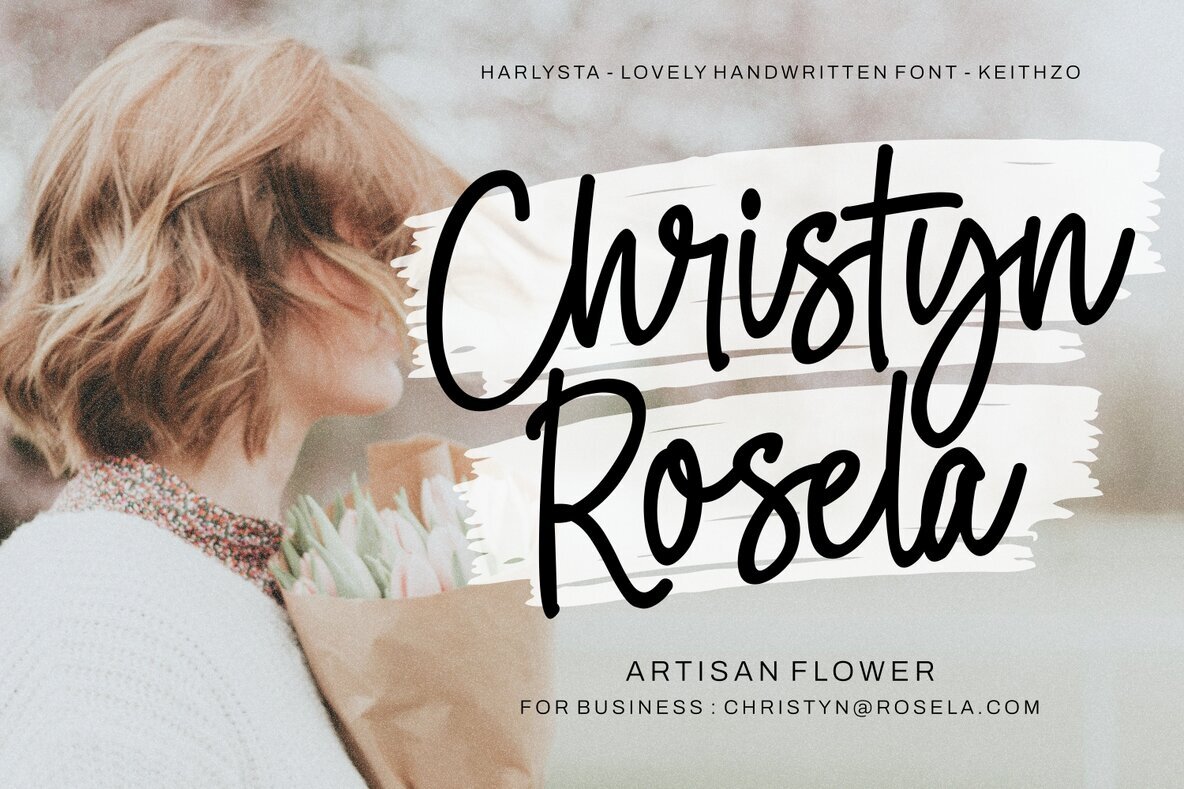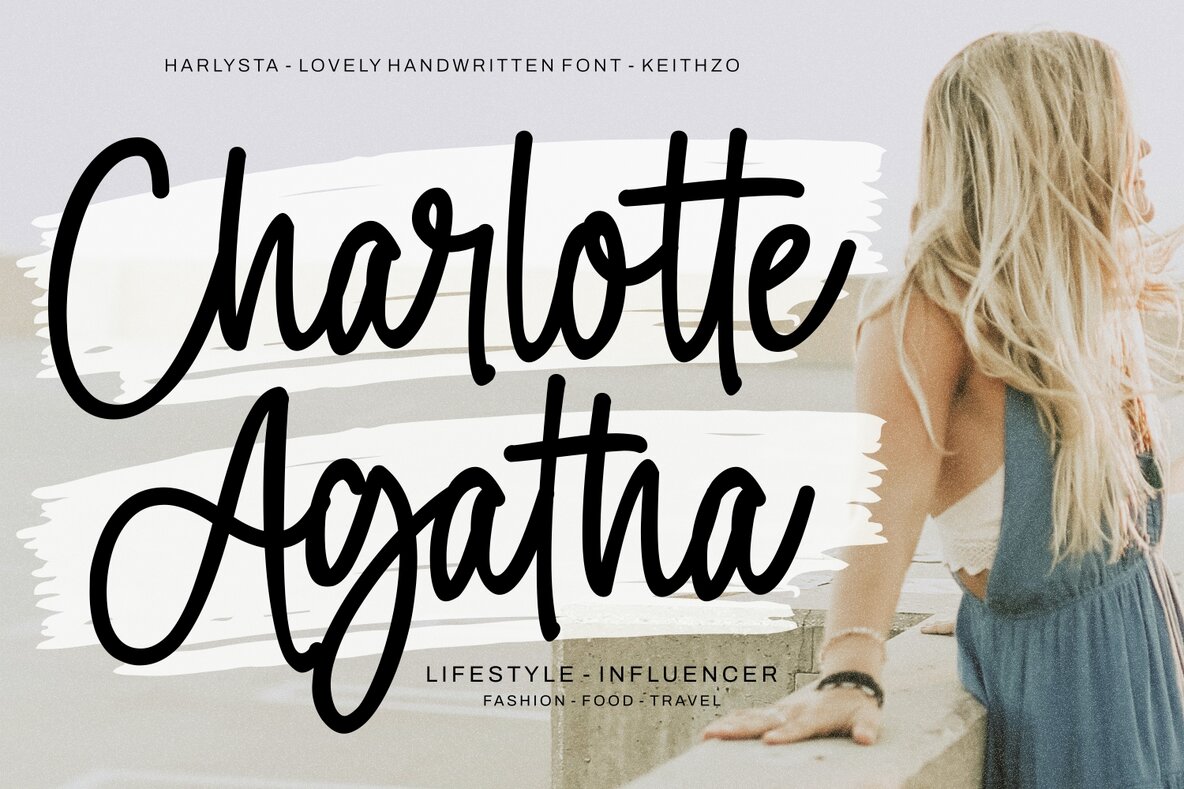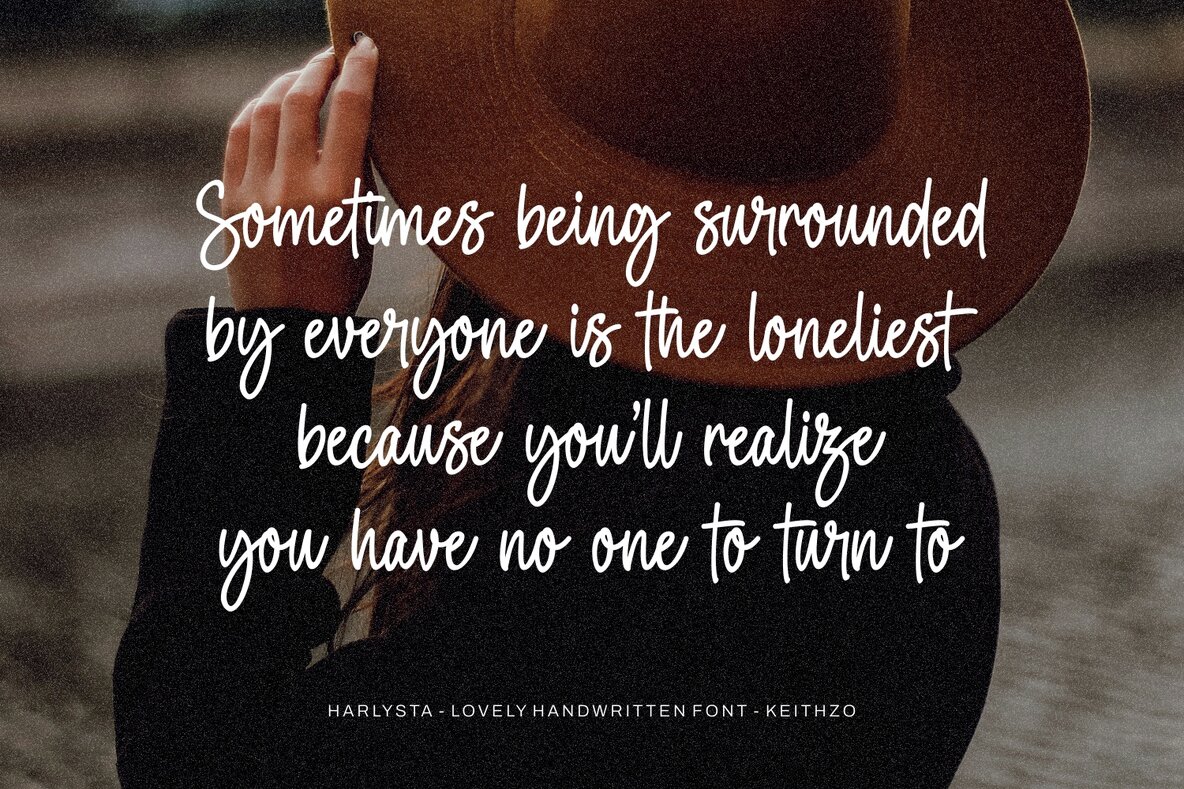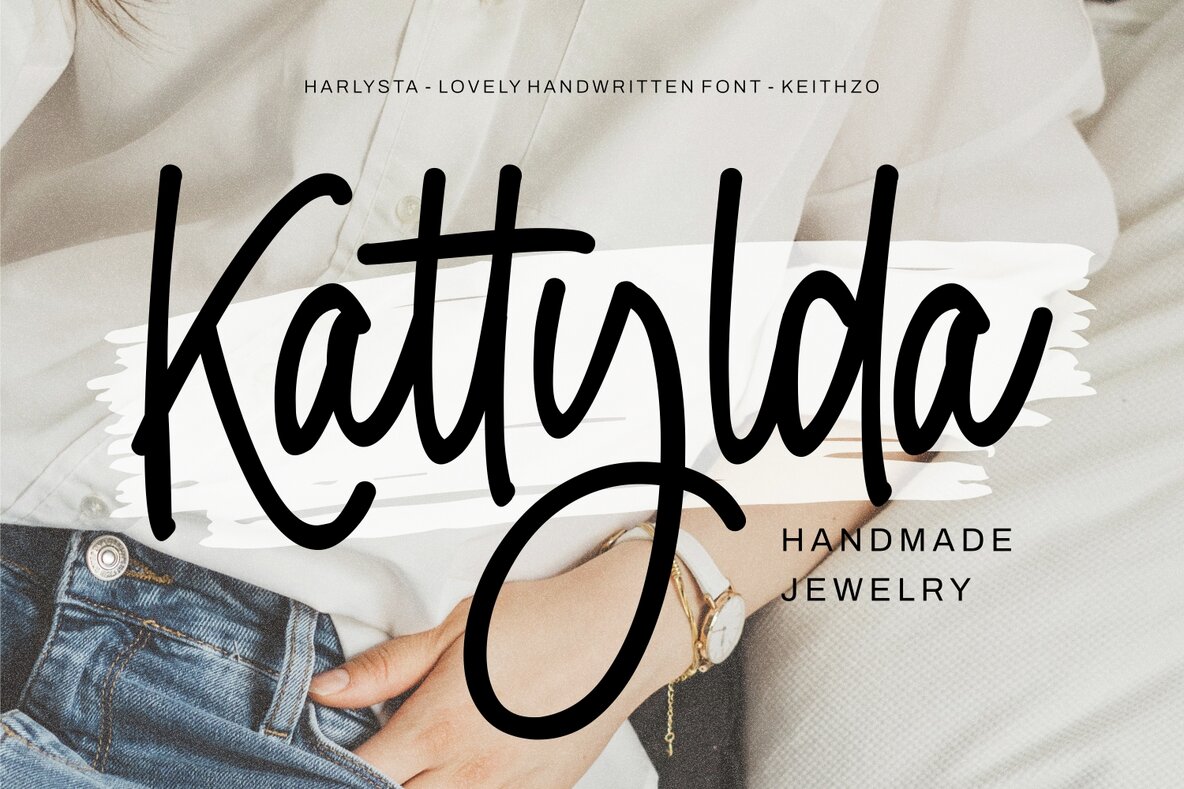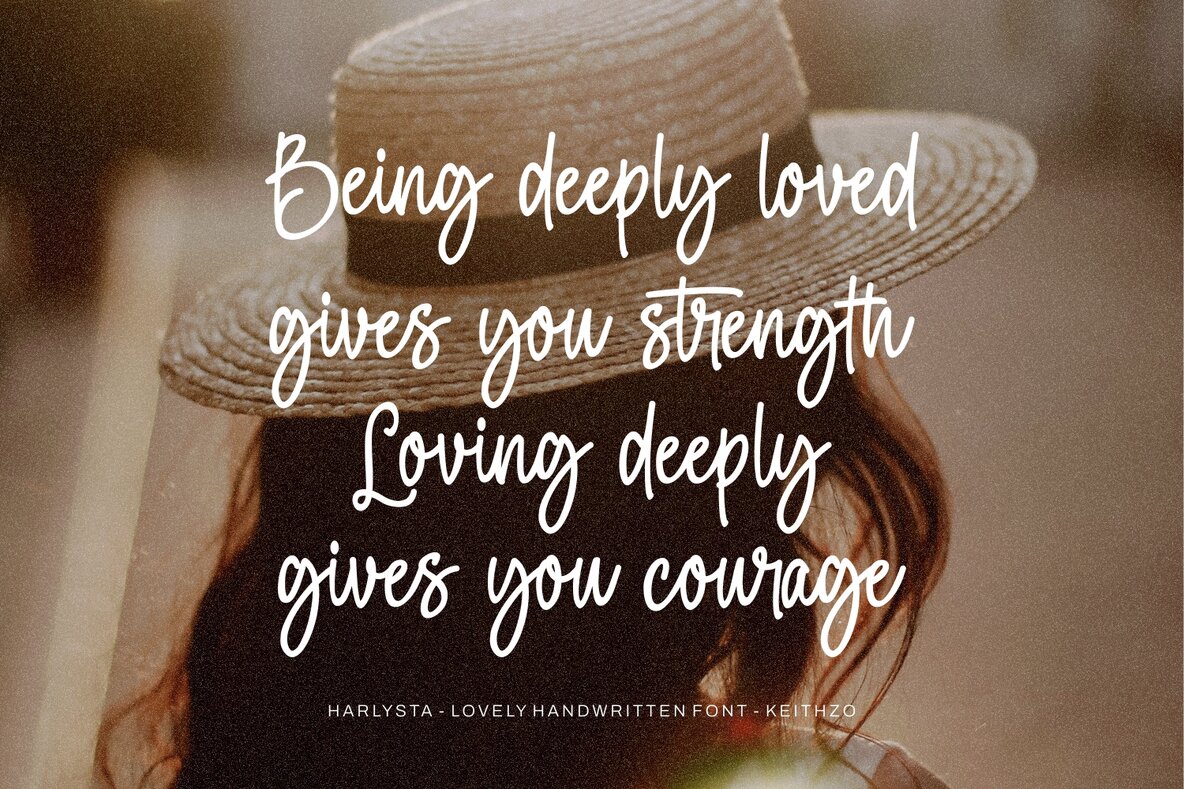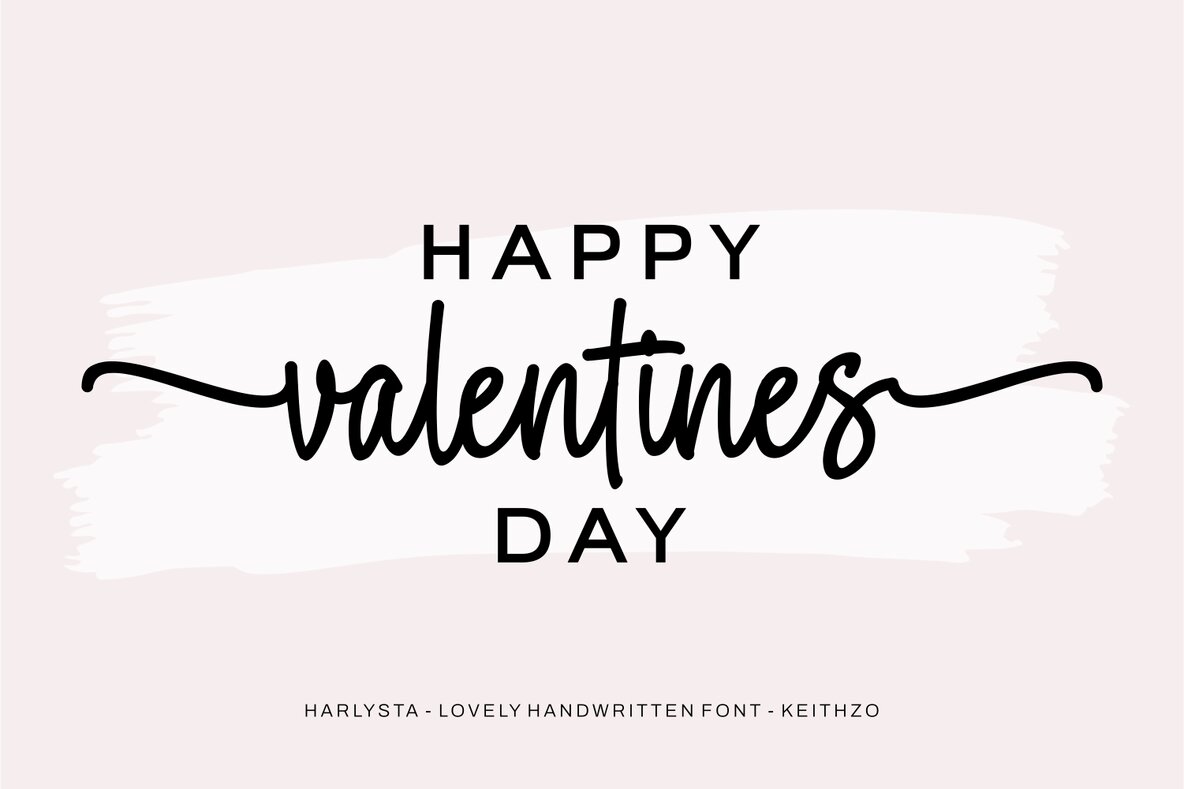
Harlysta Font
Harlysta Regular
Harlysta is a cute and friendly handwritten font. Its casual charm makes it appear wonderfully down-to-earth, readable, and, ultimately, incredibly versatile.